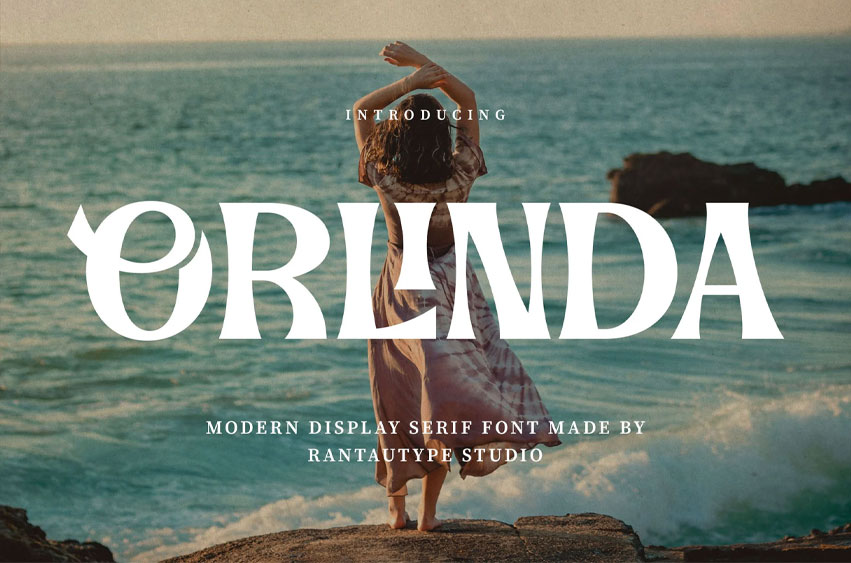
Orlinda Font is a sophisticated font that blends the timeless elegance of traditional serifs with the clean lines and bold character of contemporary design.
Orlinda is a perfect choice for any creative endeavor, chic, lifestyle design such as logotype, advertisements, watermark on photography, stationery, branding project, display and magazine, invitation, corporate brand, product design, label, business project, and many other projects with a modern touch.